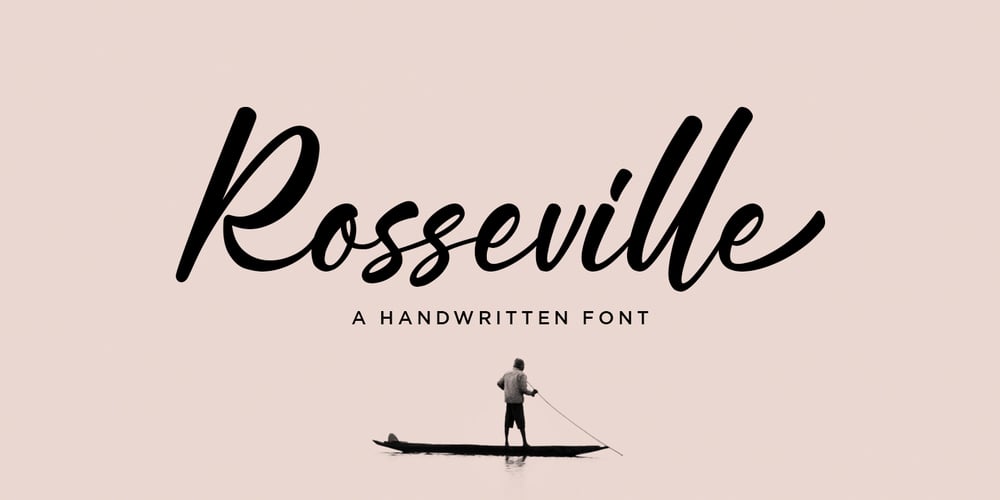
Rosseville Font Family was designed by Yanuar Adi and published by Typehand Studio. Rosseville contains 1 styles and family package options. A faboulus script font for you with tons of love. Rosseville can make text stand out – perfect for logos, printed quotes, invitations, cards, product packaging, headers and whatever your imagination holds.